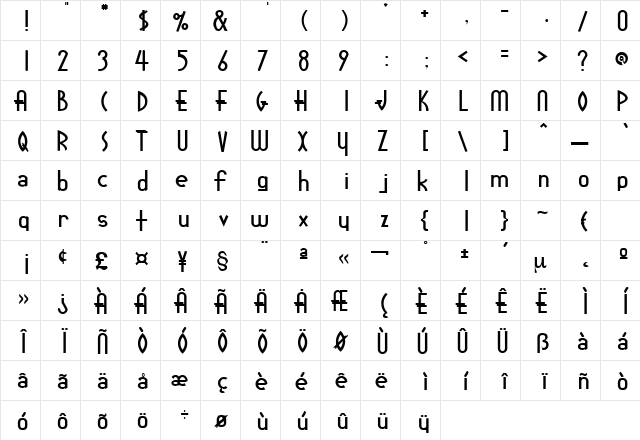
Dollar Regular
Design Context for Dollar Typeface
Dollar is a composed and adaptable typeface that performs quietly and consistently across a wide range of design contexts.